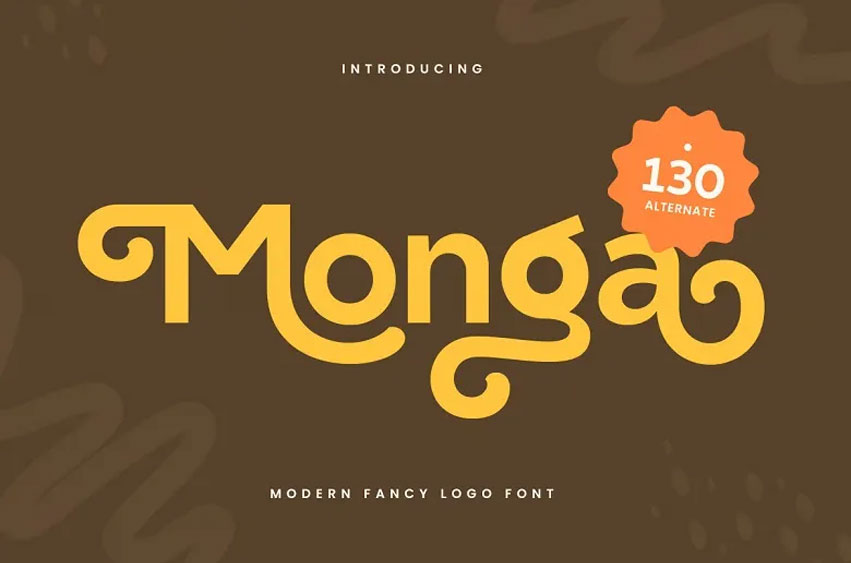
Monga Font is a new modern sans serif font that can be characterized by its elegance and creativity at the same time.
This clean and simple font is best suitable for logos, branding and any design project that needs that class. Monga’s special character and modern look help it to be quite different and give a modern twist to your creations.